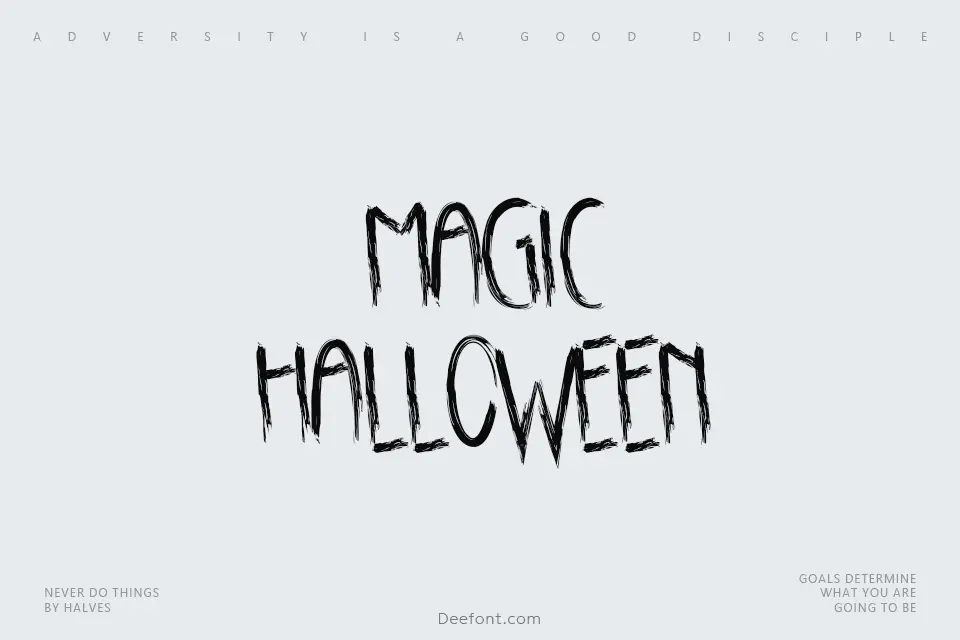
Magic Halloween Font
Magic Halloween Font is a scary font with a minimal effect of brushstrokes. The additional elements of blood dripping and bones-like letters make an ambiance of horror Invitations, postcards, posters, and headings for a Halloween event; this font can be used in every setting.
Designed by:Andi MozWebsite